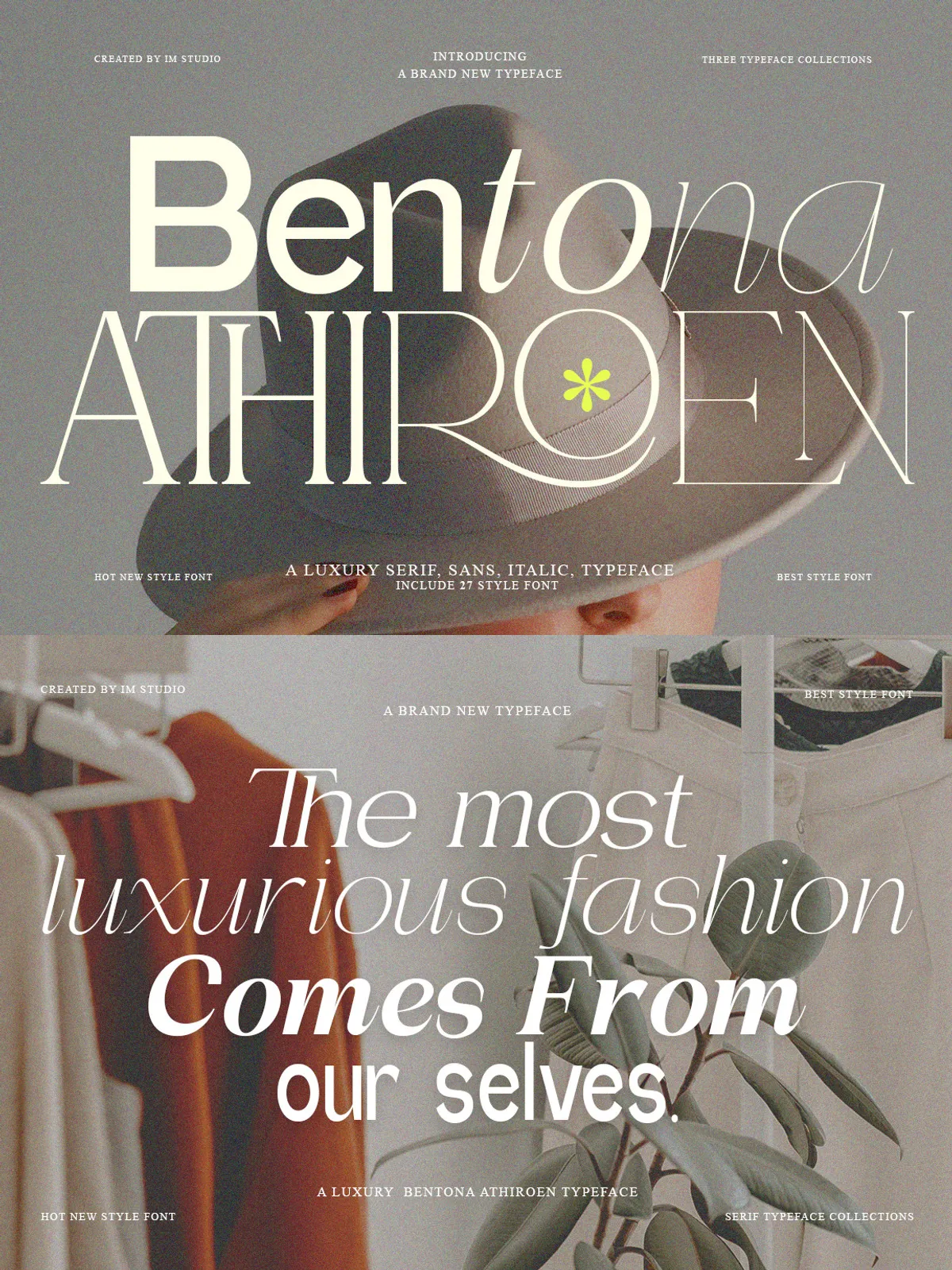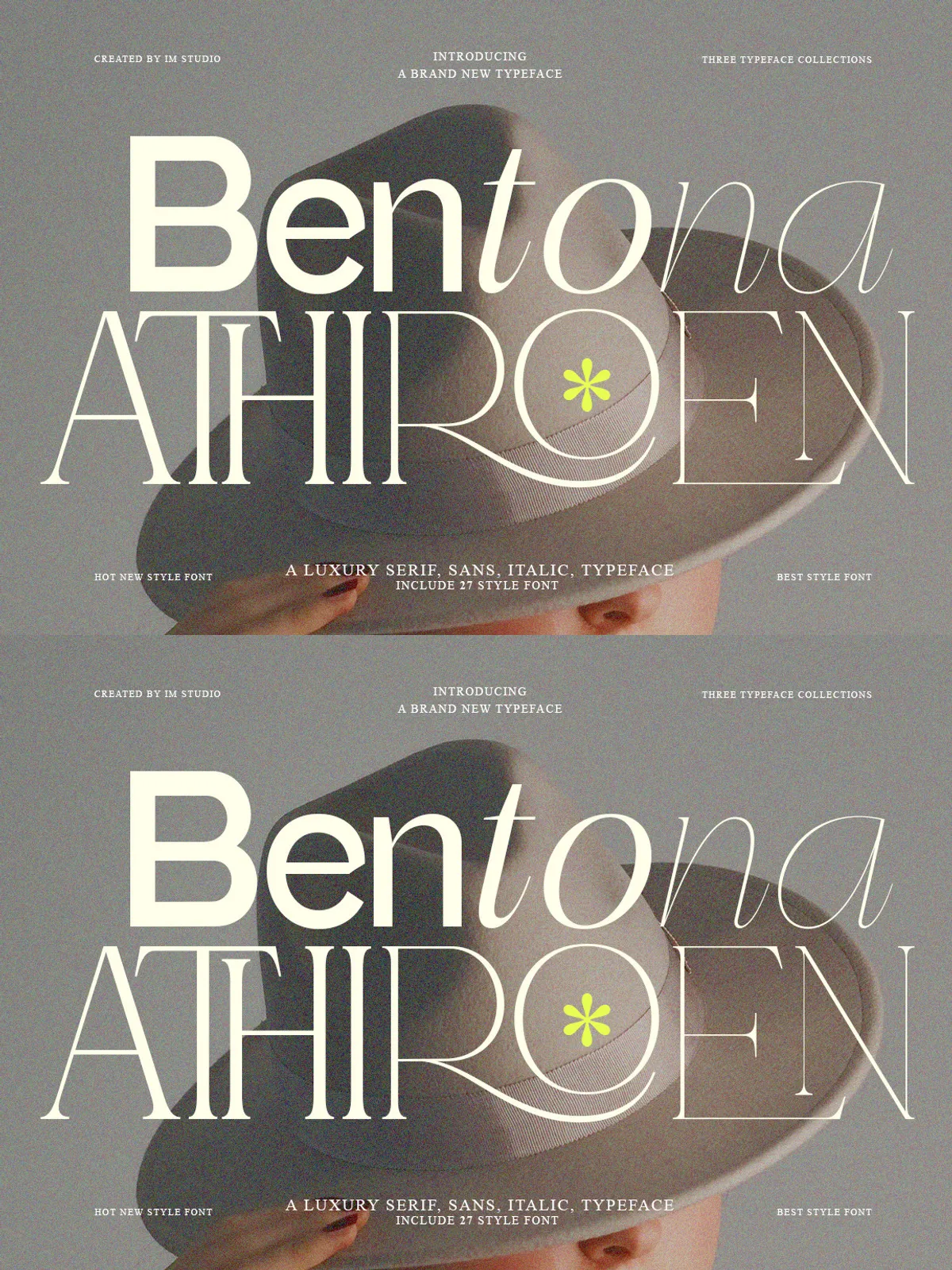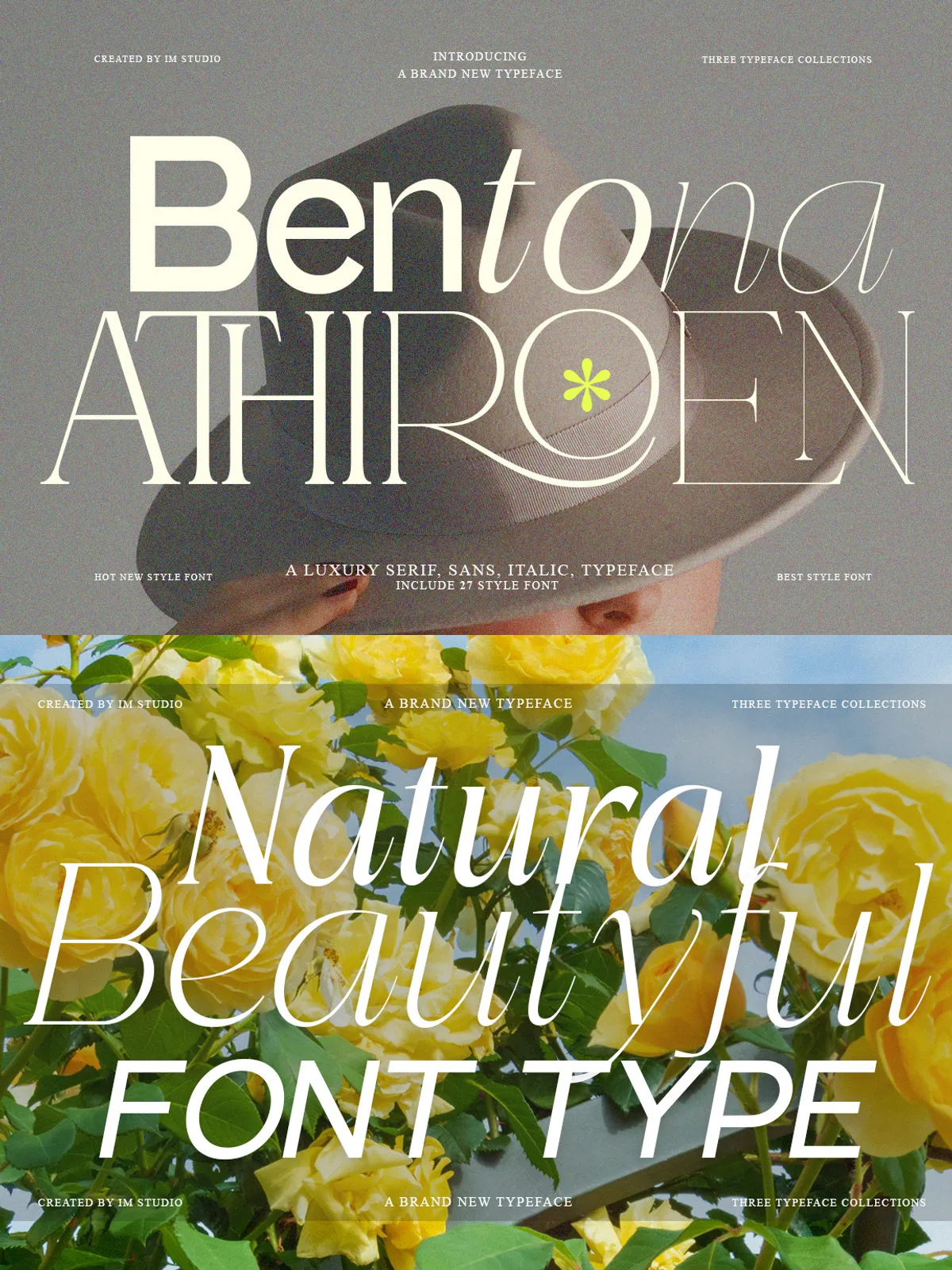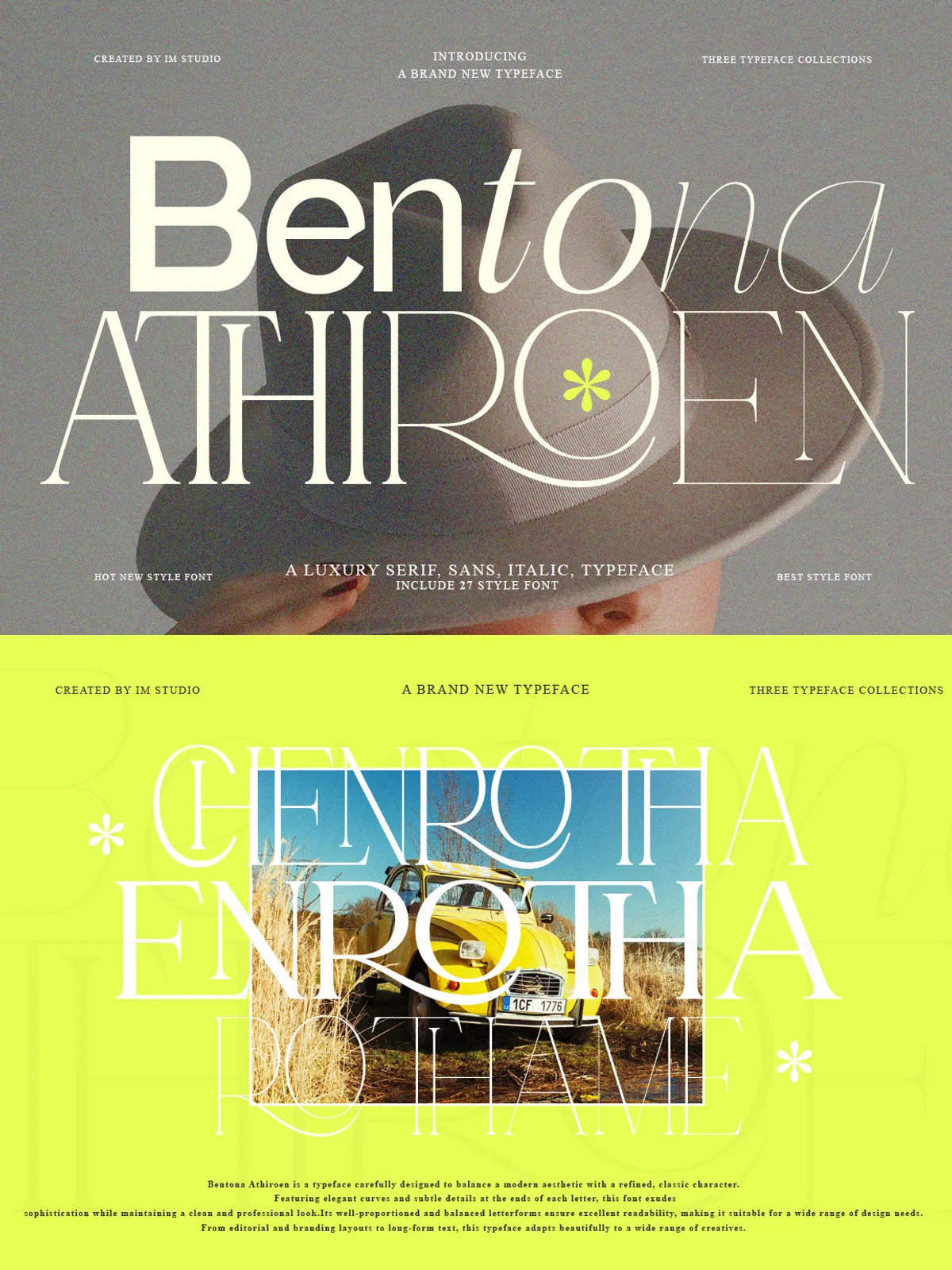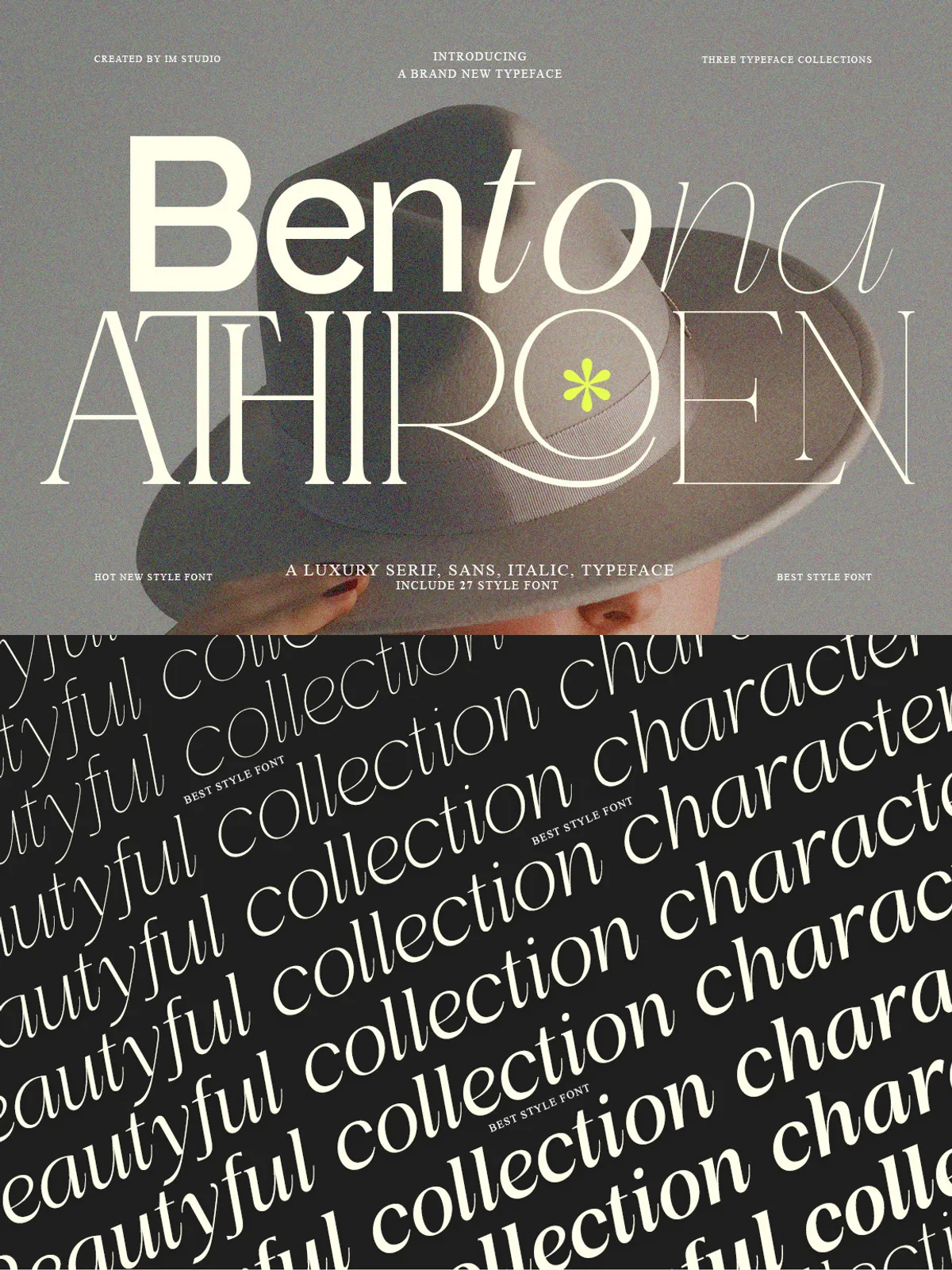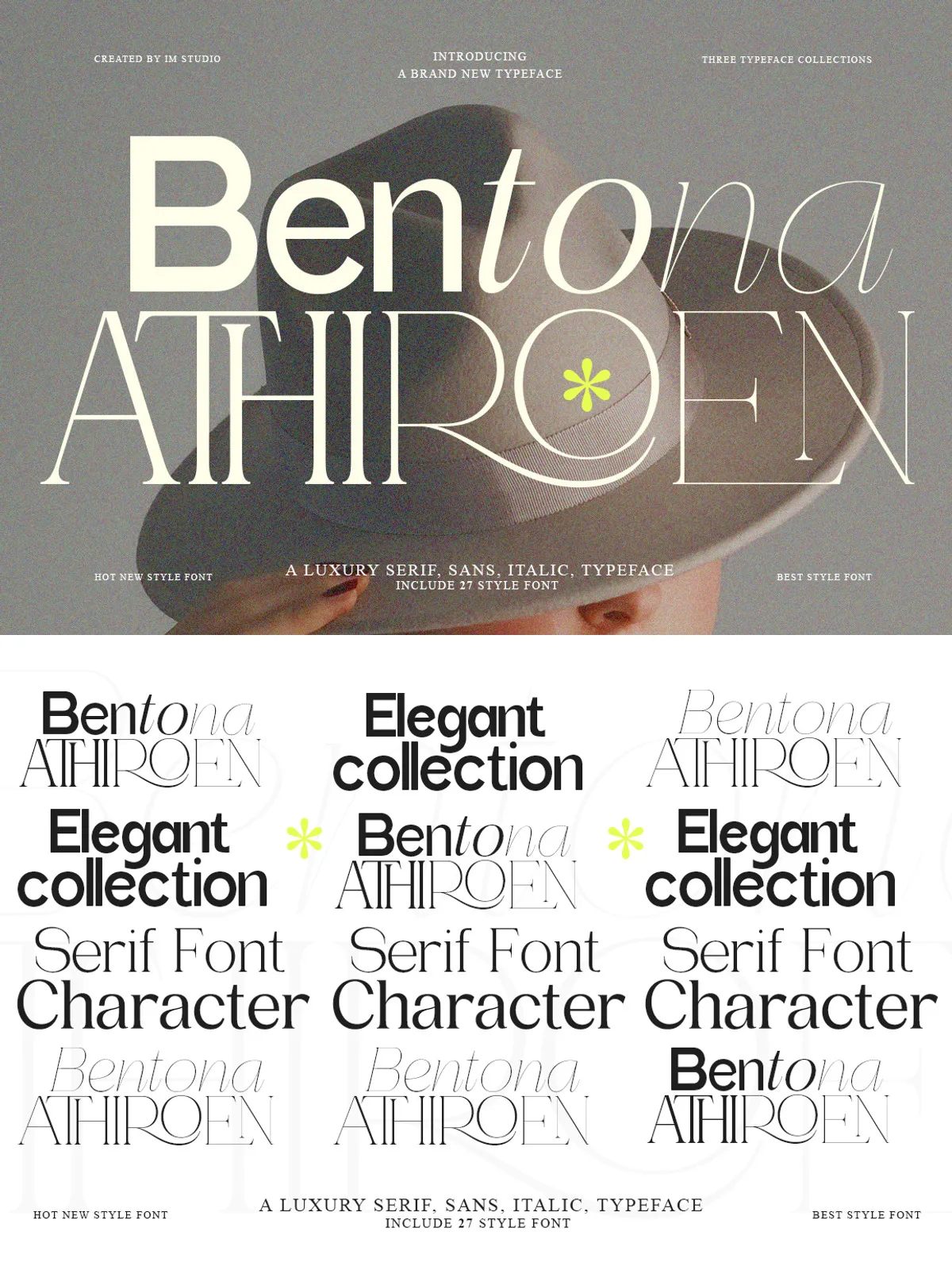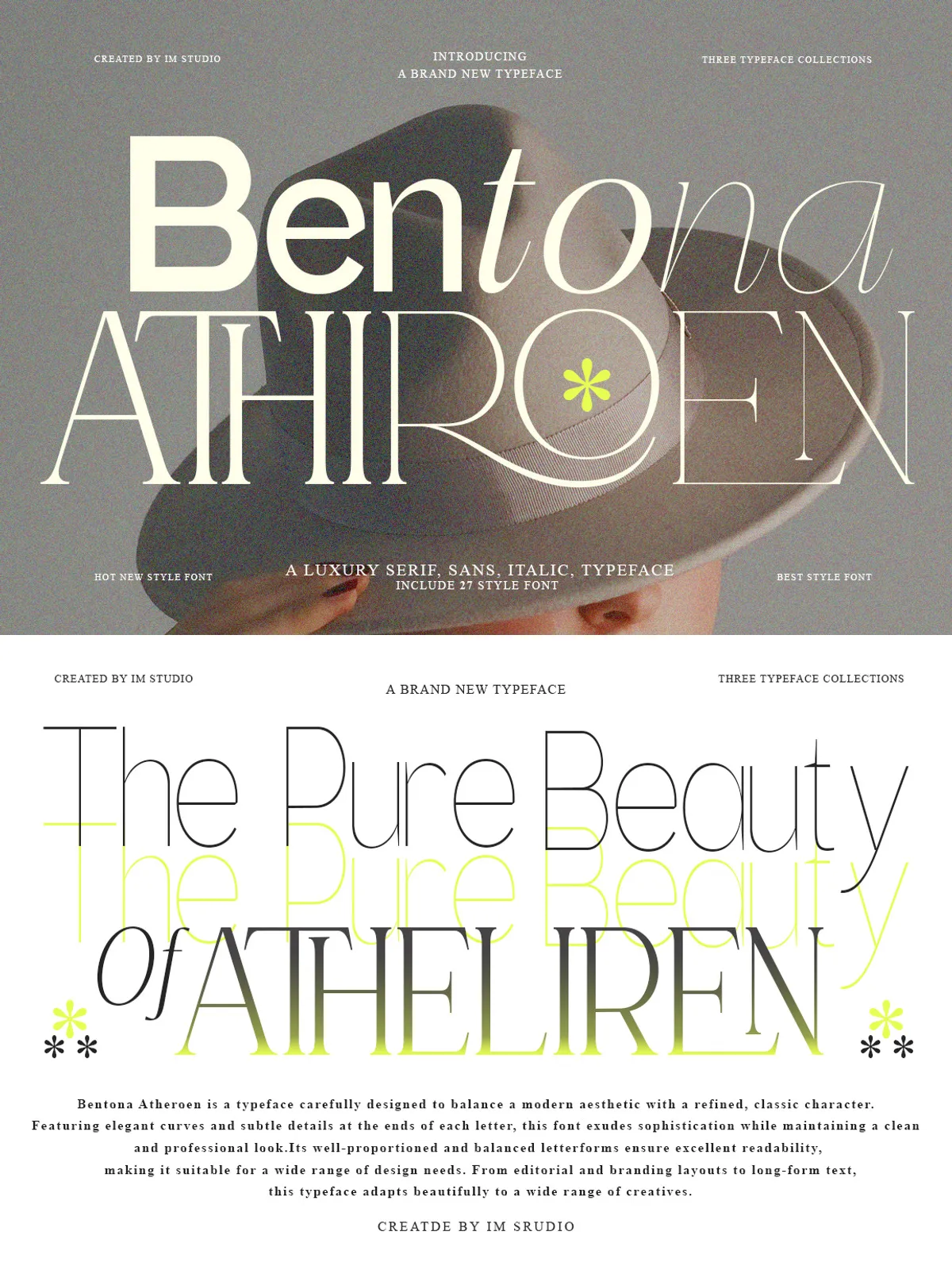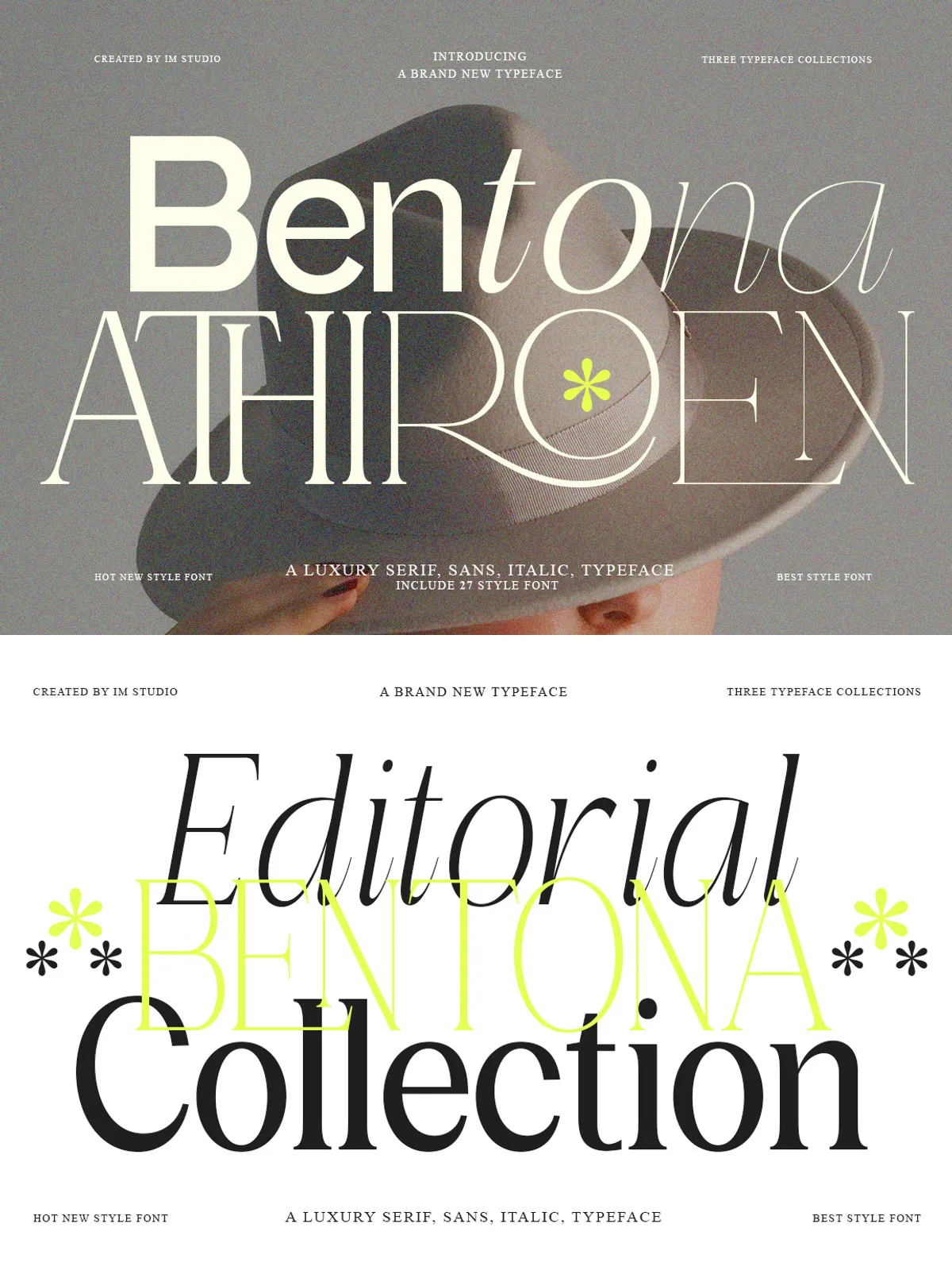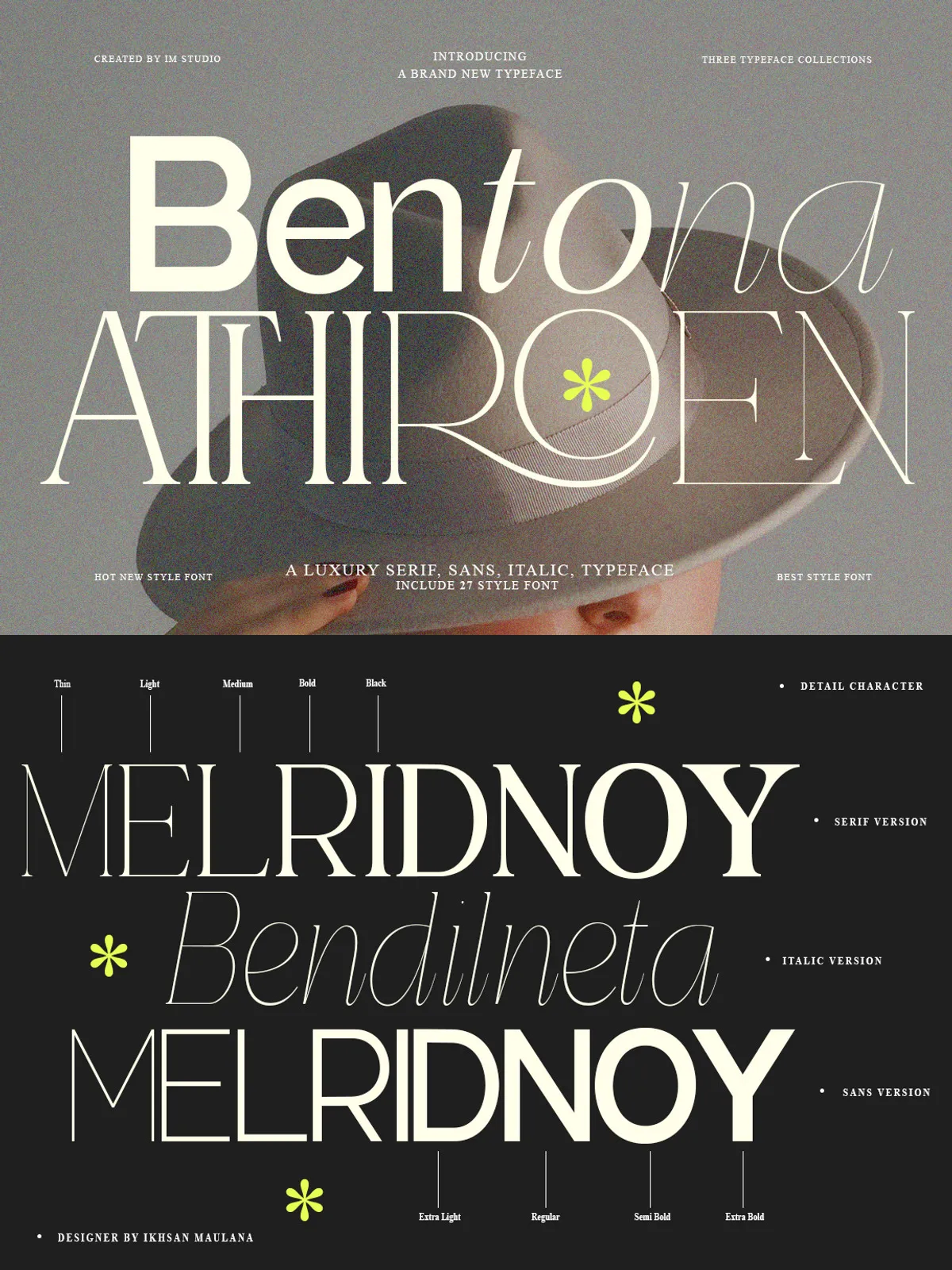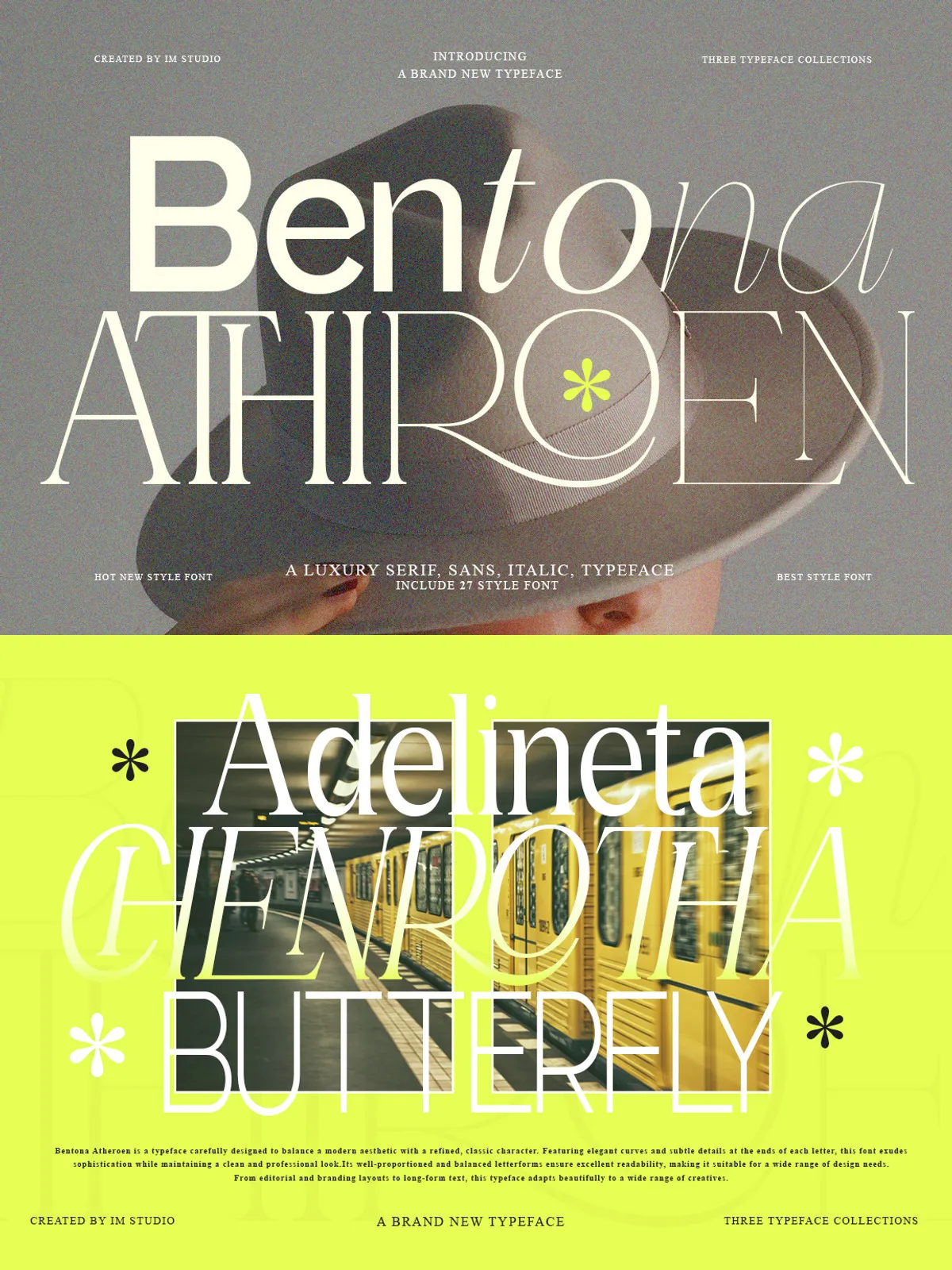
Bentona Athiroen (27 Fonts Style)
Step into the future of typography with Bentona Athiroen — a masterfully crafted typeface family designed for creatives who demand both clarity and soul. Every letterform is engineered with intentional balance, subtle contrast, and graceful curves that command attention without overpowering the message. This is not just a font — it’s a design philosophy made visible.
Bentona Athiroen bridges the gap between industrial precision and organic elegance. Whether you’re building a bold brand identity, formatting a book manuscript, or designing a high-end digital interface, this typeface adapts with quiet confidence, bringing sophistication to every pixel and point.
Three Styles, One Powerful Vision
Bentona Athiroen isn’t a single font — it’s a complete typographic ecosystem. With carefully developed variations in Sans, Serif, and Italic, it offers unmatched versatility for any creative need:
• Bentona Athiroen Sans — Minimal, structured, and modern. Perfect for clean headlines, digital interfaces, and minimalist branding that speaks volumes in silence.
• Bentona Athiroen Serif — Timeless and refined. Ideal for editorial layouts, literary publications, and elegant stationery, where tradition meets contemporary design.
• Bentona Athiroen Italic — A true slant design, not a forced oblique. Flowing naturally with the upright styles, it adds rhythm, movement, and expressive nuance to copy without compromising readability.
Each of the three styles comes in 9 weights, from Light to Black, offering infinite flexibility for contrast, hierarchy, and visual storytelling.
• Advanced Features for Professional Designers
Bentona Athiroen is built for professionals who want control, quality, and expressive depth. Thanks to full OpenType support, you gain access to:
• Dynamic ligatures for elegant wordplay and typographic harmony
• Stylistic sets to customize letterforms and add unique character
• Positional figures, small caps, and old-style numerals for refined typography
• Advanced spacing and kerning for optimal line and paragraph clarity
• PUA-encoded glyphs for access to special symbols and decorative elements
Designed for Global Creativity
Bentona Athiroen isn’t just beautiful — it’s inclusive. With support for over 90 languages, this font is ready for international brands, global publishers, and cross-cultural campaigns. It seamlessly handles complex scripts, diacritics, and multilingual layouts — so your message reaches every audience, in every language, with the same level of excellence.
From European languages and Cyrillic to Arabic, Thai, and Devanagari, Bentona Athiroen ensures consistency, accuracy, and visual harmony — no matter where your work travels.
Perfect for Every Creative Challenge
Bentona Athiroen isn’t just adaptable — it’s purpose-built. Here’s where it shines:
• Branding & Identity — Forge a memorable, sophisticated brand voice with clean, modern forms that stand the test of time.
• Editorial & Publishing — Elevate magazines, books, and long-form articles with unparalleled readability and elegance.
• Web & Digital Design — Optimize for clarity and beauty across all screen sizes, from mobile to desktop, ensuring fast rendering and crisp visuals.
• Packaging & Print — Add a premium, curated finish to product boxes, labels, and printed materials with a tactile sense of quality.
• Invitations & Stationery — Offer timeless elegance to wedding invites, business cards, and formal correspondence with graceful, expressive typography.
27 Styles. One Complete Typeface System.
Bentona Athiroen gives you everything you need in one powerful package:
• 9 Weights in Sans
• 9 Weights in Serif
• 9 Weights in Italic
• 27 Total Styles — a complete typographic system ready for any challenge
This is more than a font family — it’s a design toolkit, a creative partner, and a silent confidence builder for every project you touch.
In a world of generic fonts, Bentona Athiroen stands out not by shouting — but by being quietly, powerfully perfect. It doesn’t just display text. It shapes emotion, builds trust, and tells stories through form.